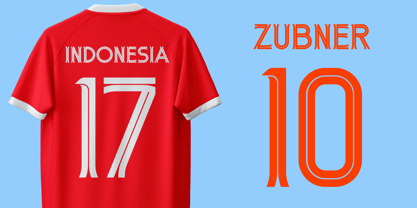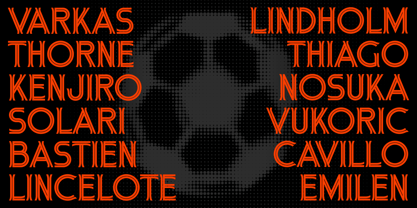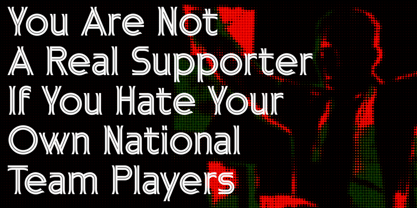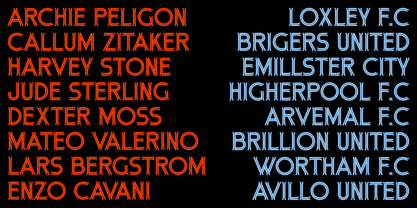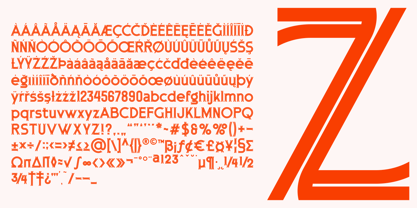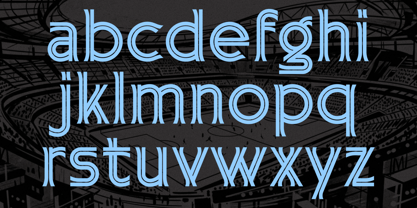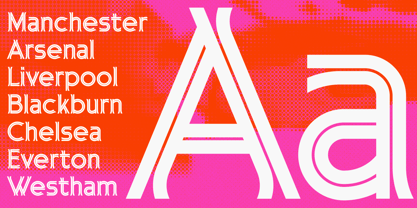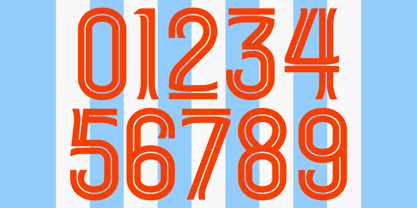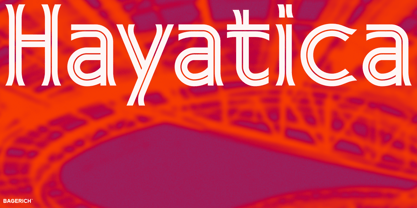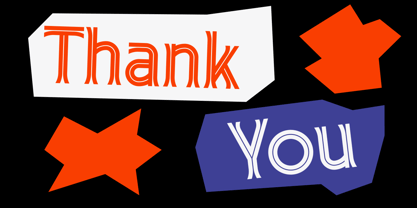
Hayatica
This typeface is a sophisticated fusion of mid-century athletic heritage and sharp, modernist precision. By utilizing a distinct double-line inline stroke, it captures the nostalgic essence of vintage jersey appliqués and classic stadium signage, where numbers were often defined by layered stitching or neon tubing. The "open" nature of the letterforms prevents the font from feeling heavy or dated; instead, it adopts a high-fashion, architectural quality that feels right at home in a contemporary minimalist setting. The balanced weight of the strokes and the rhythmic repetition of the lines create a sense of constant motion, much like the sports culture that inspired its creation. Underpinning this retro flair is a rigid commitment to clean modernism and geometric consistency. Every character, from the perfectly circular O to the sharply angled W and X, is built on a structured grid that ensures maximum legibility and visual harmony. The absence of traditional serifs or decorative flourishes emphasizes a "less is more" philosophy, allowing the dual-contour aesthetic to remain the focal point. This results in a versatile display font that bridges the gap between the raw energy of a 1970s varsity locker room and the refined, technical elegance of a 21st-century design studio.